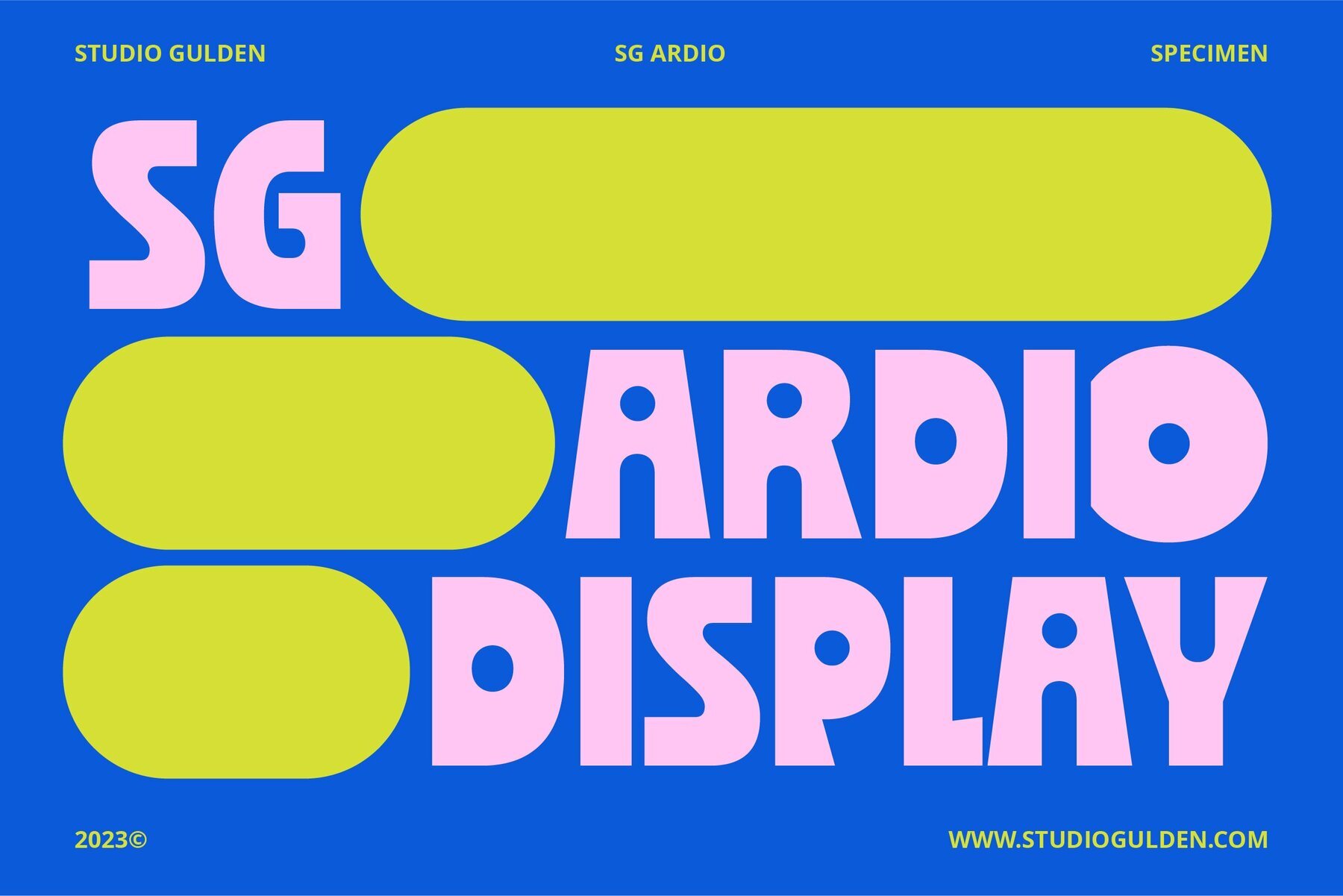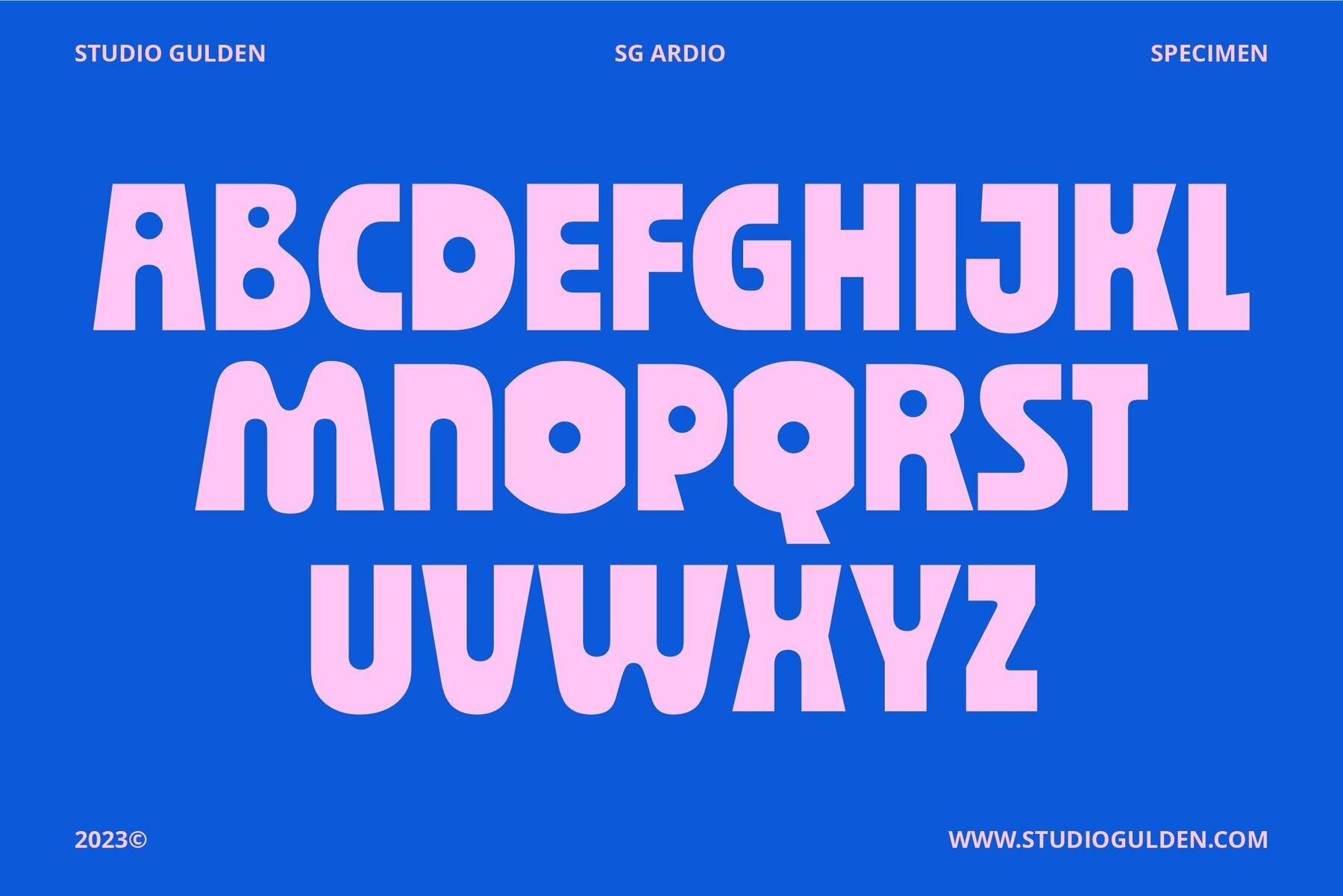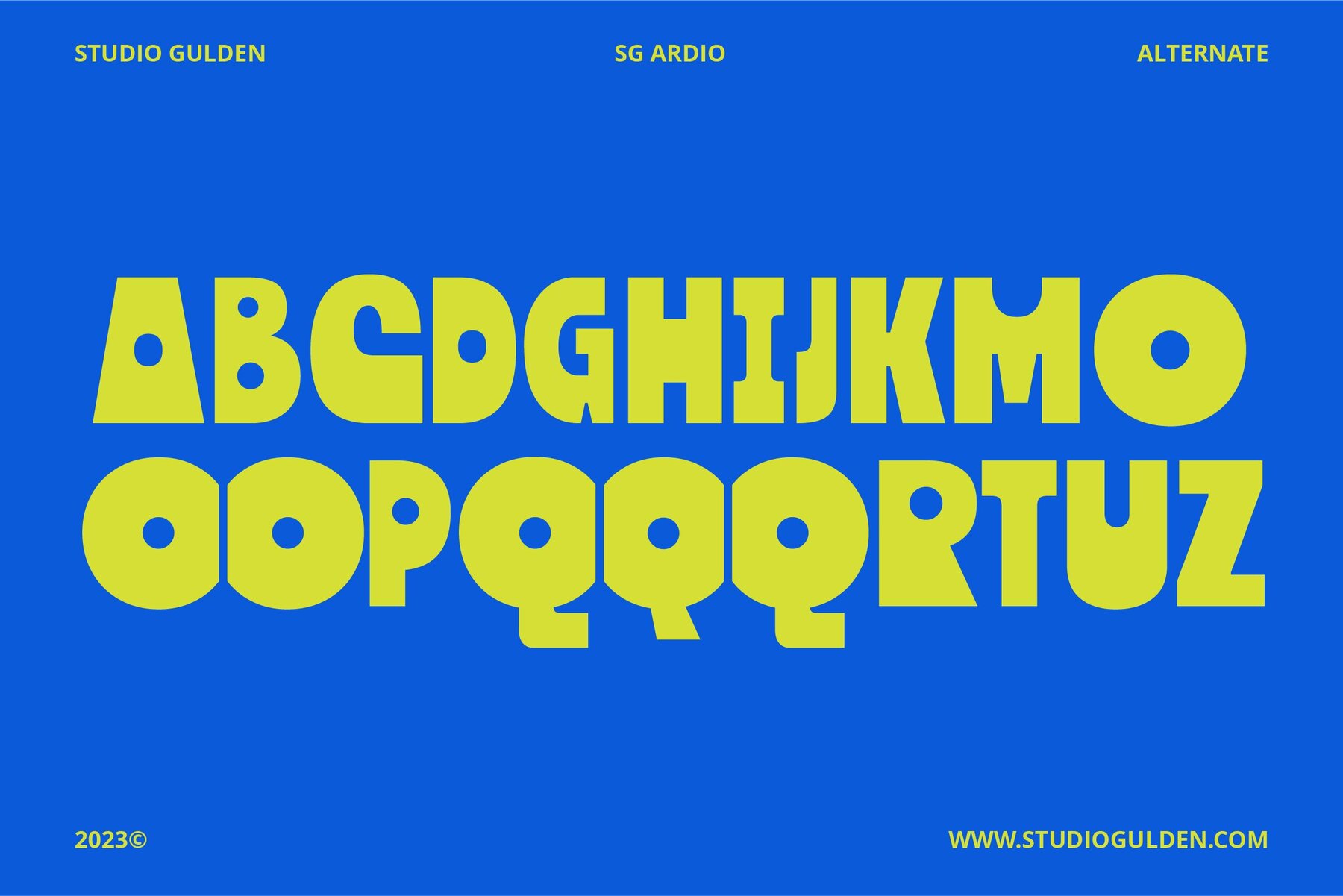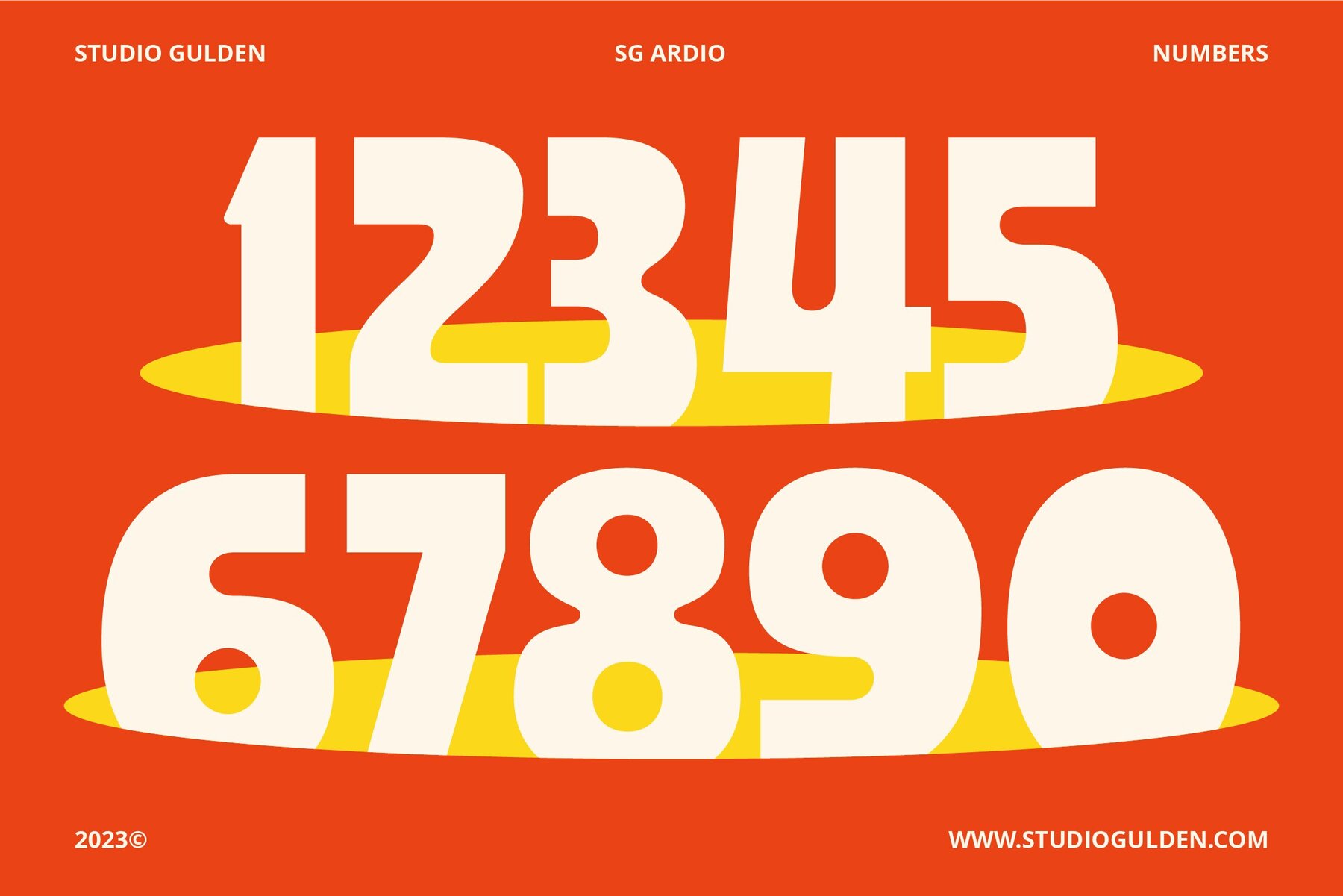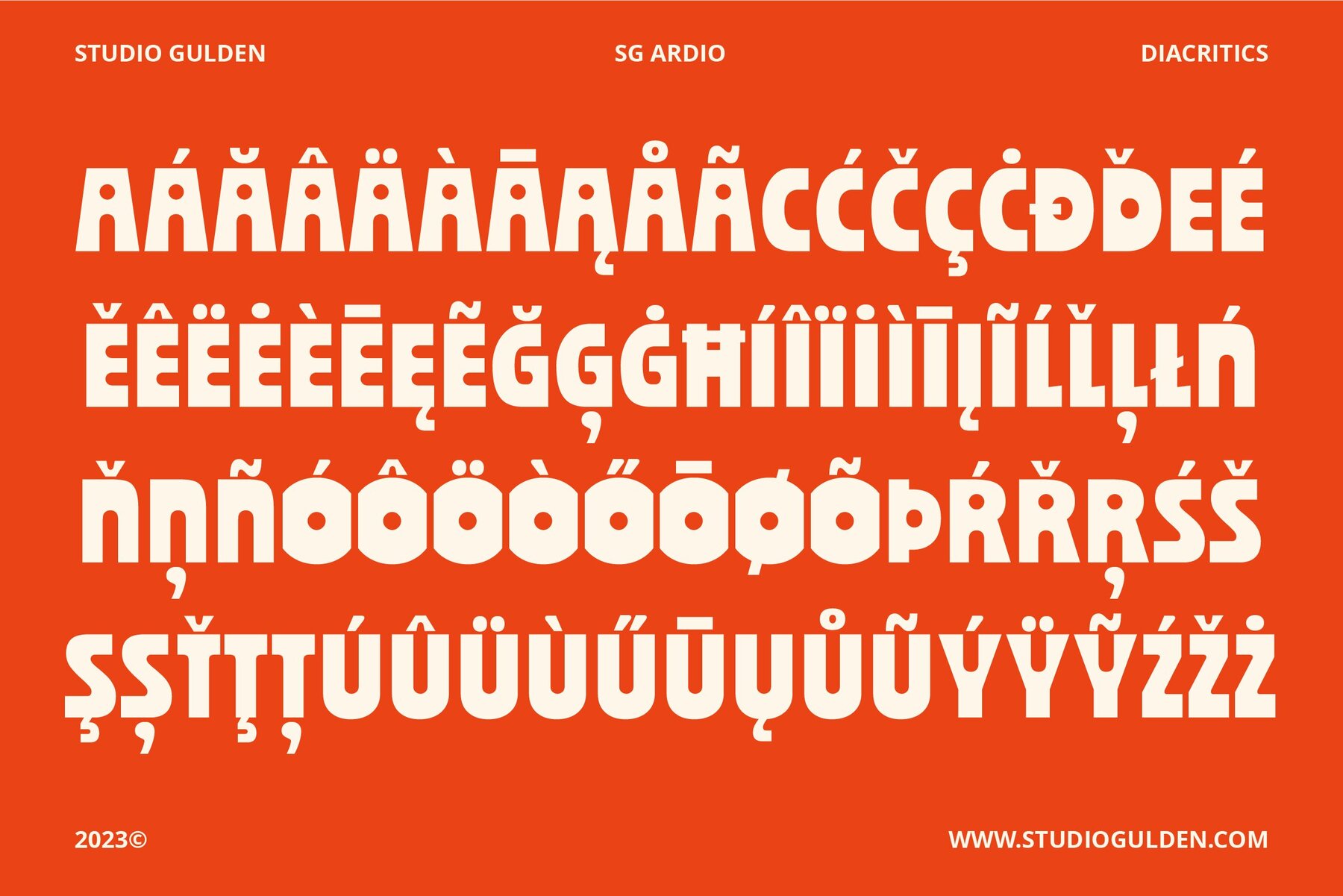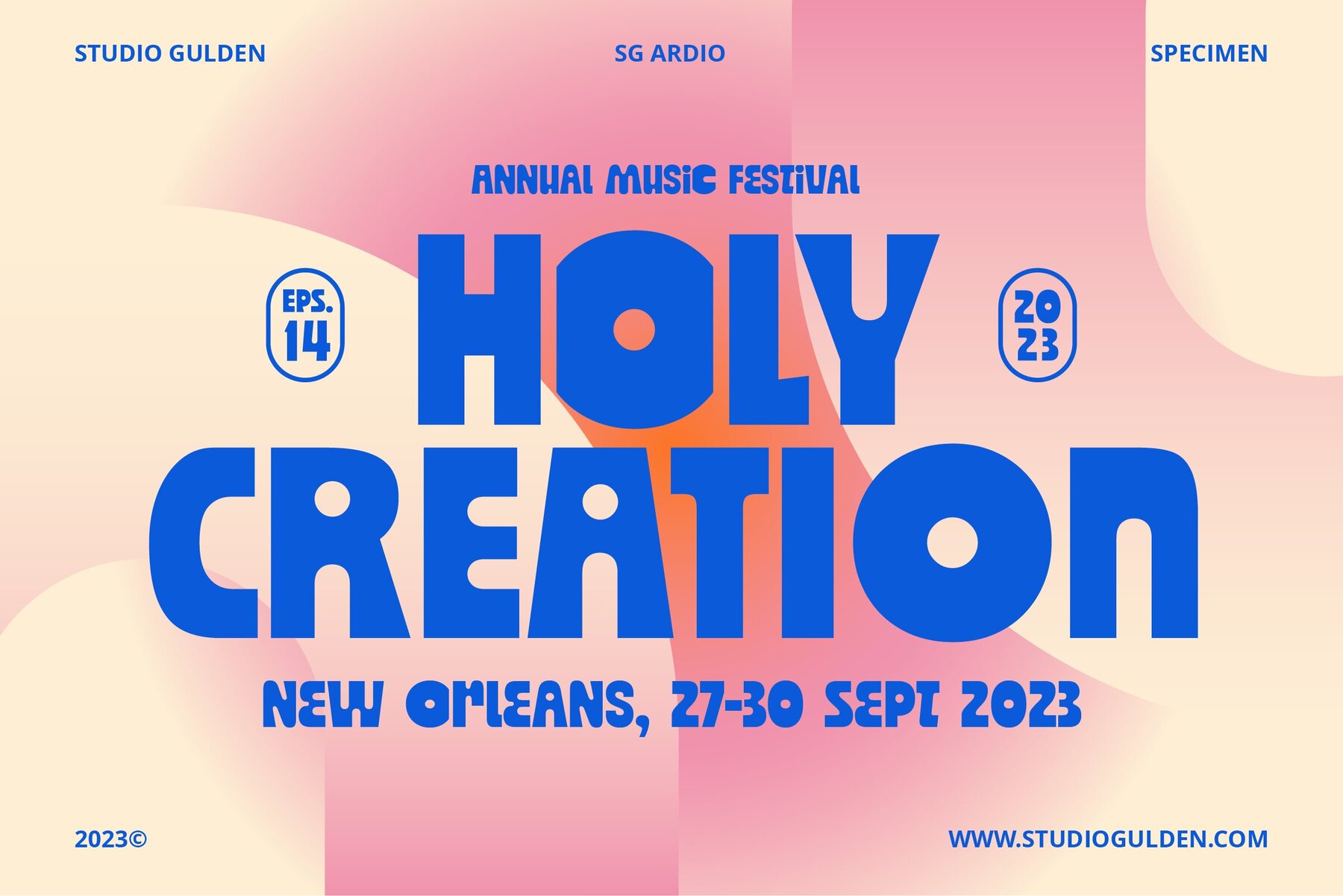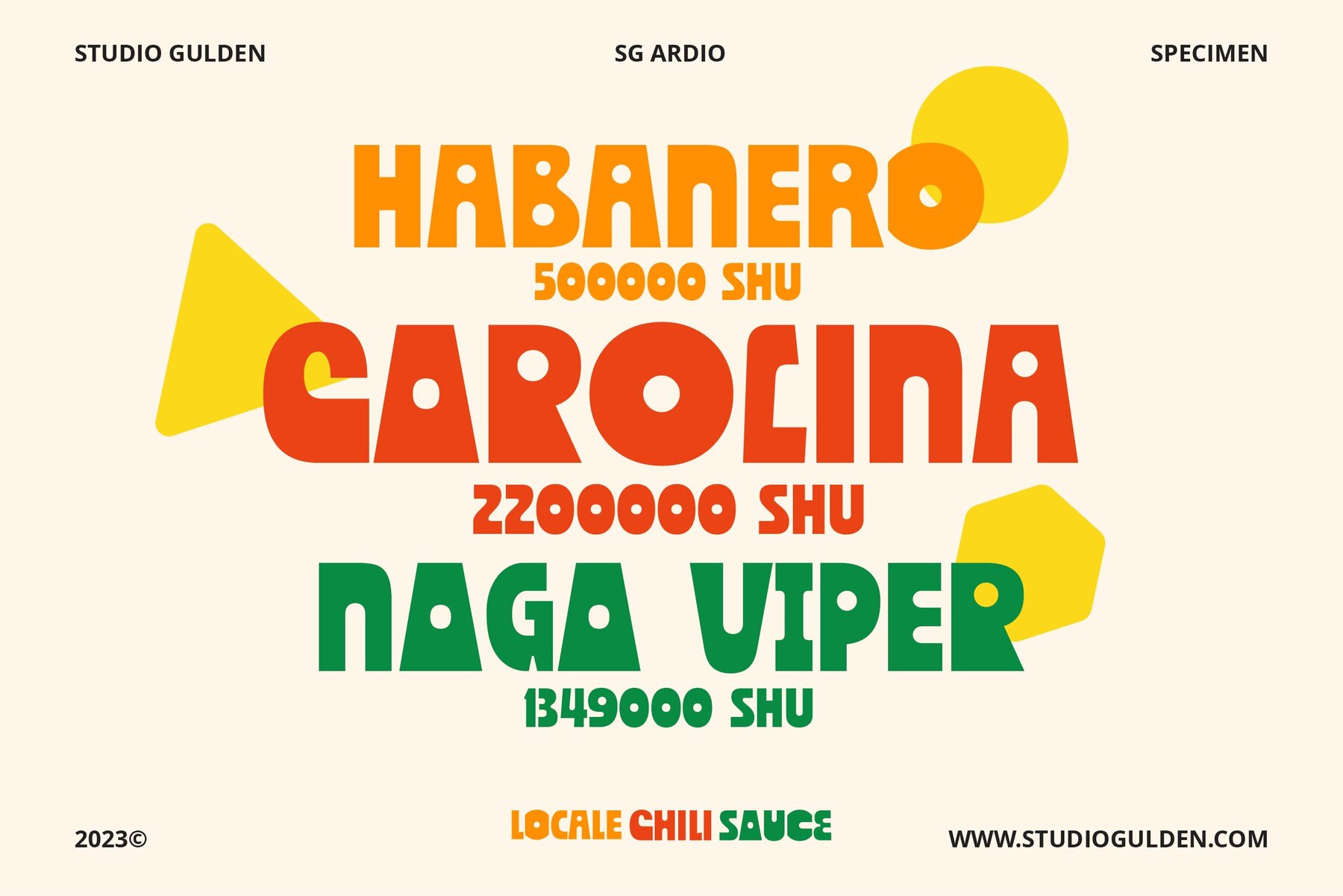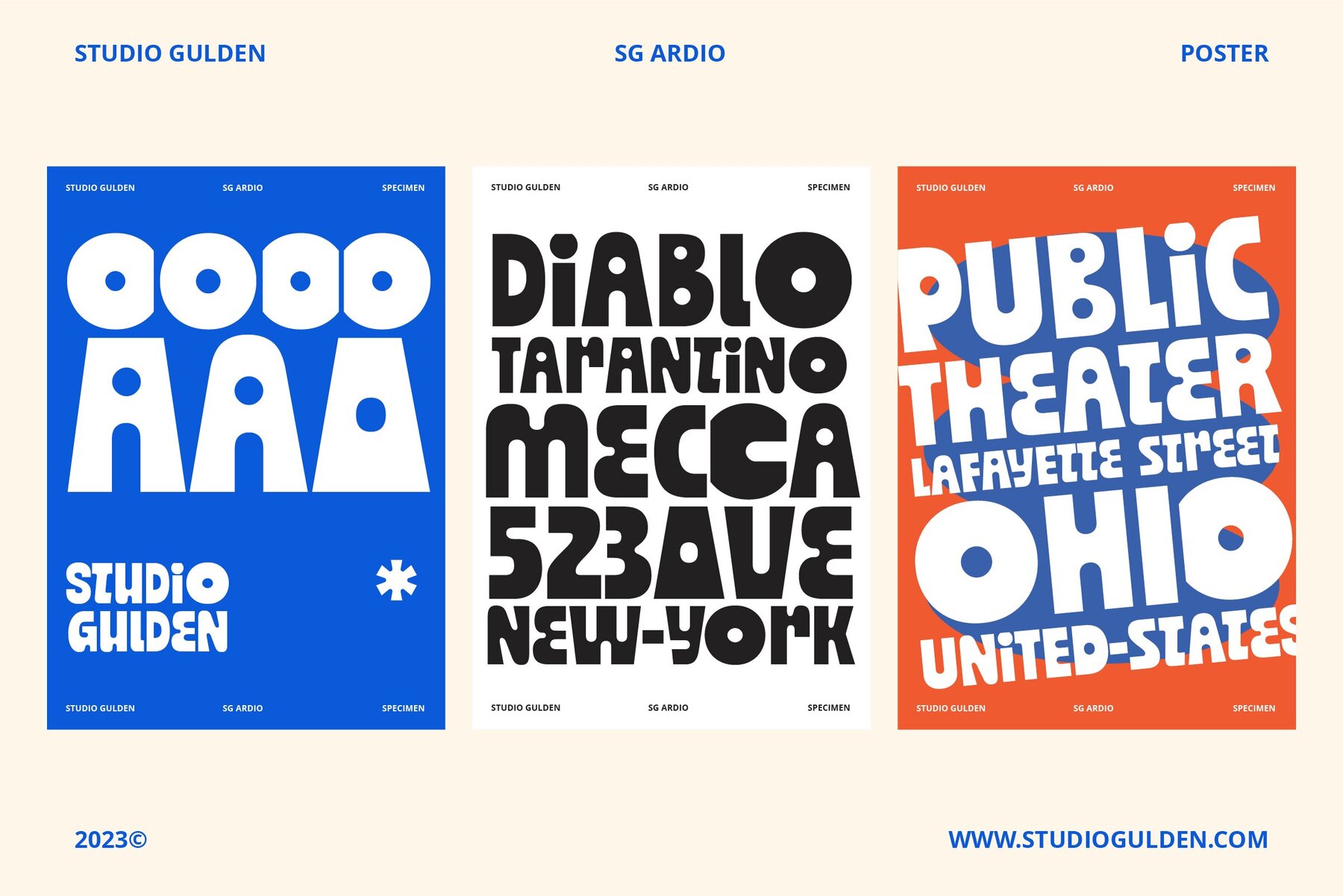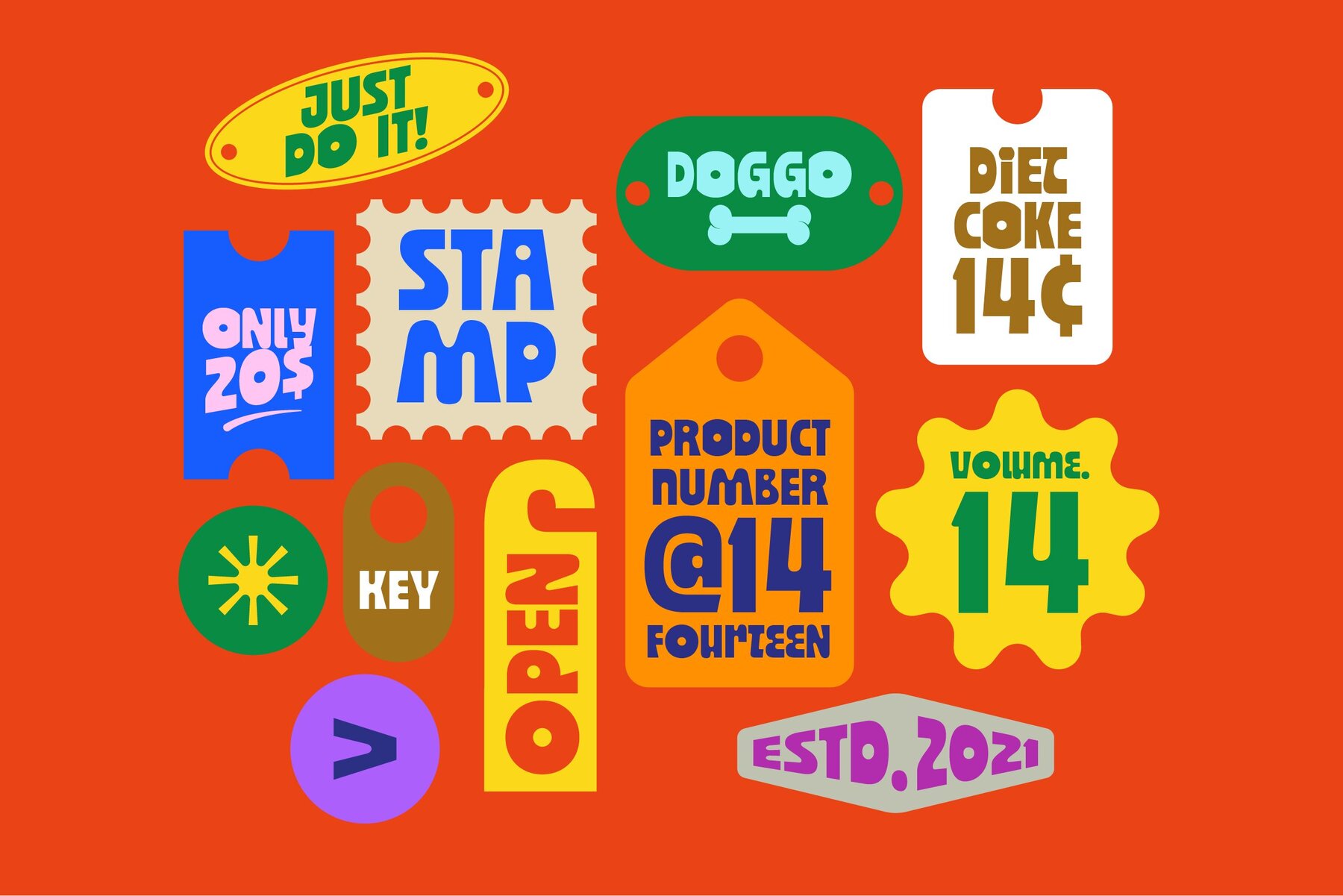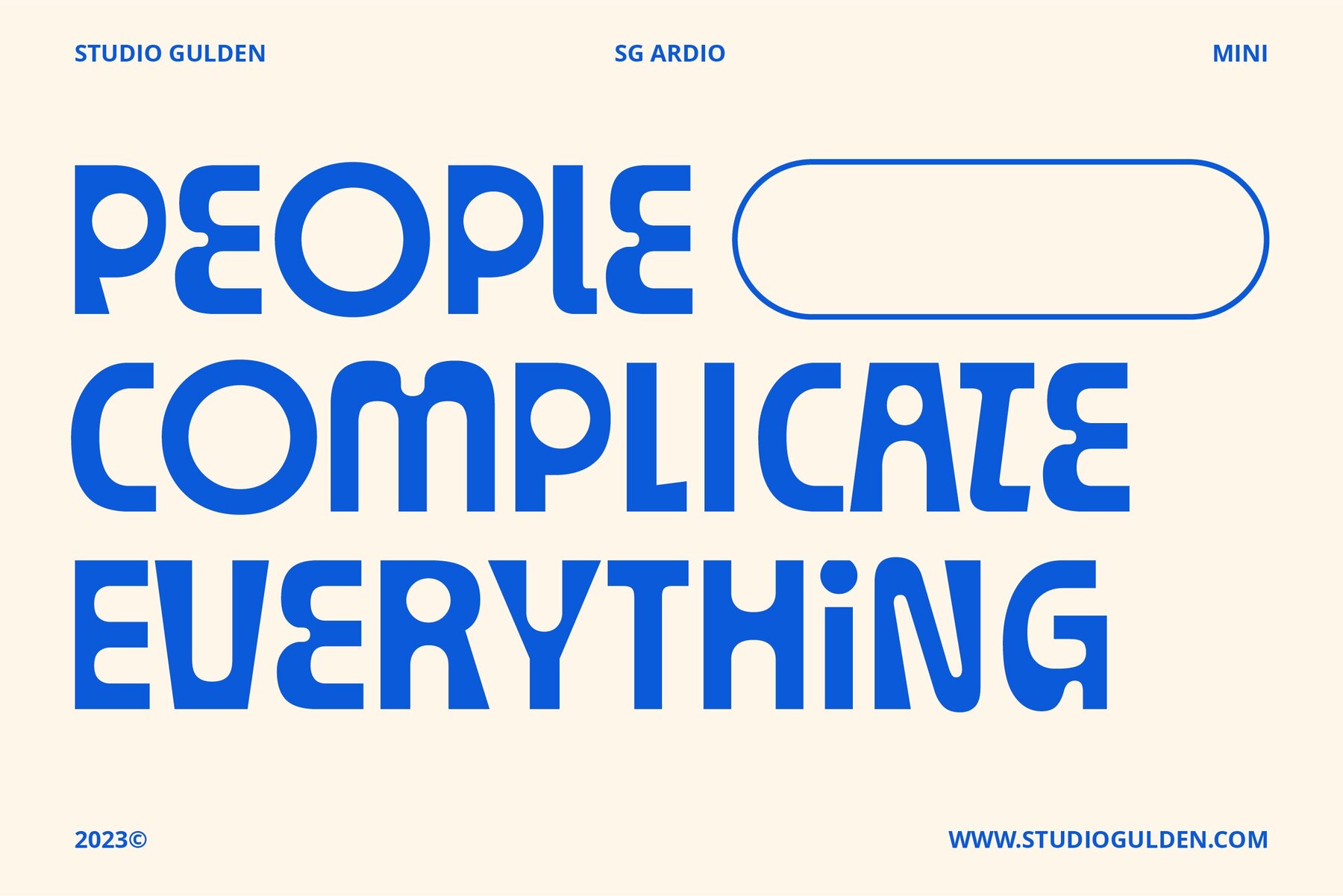
SG Ardio Font
SG Ardio Maxi
SG Ardio Midi
SG Ardio Mindi
SG Ardio Mini
Experience the bold brilliance of SG ARDIO, a display logo font that masterfully combines simplicity and courage. Available in four distinct styles—mini, midi, mindi, and maxi—SG ARDIO serves as an essential tool for creating striking designs, captivating posters, and unforgettable headlines.SG Ardio: Where Simplicity Meets Bold Design
Versatile Style Options